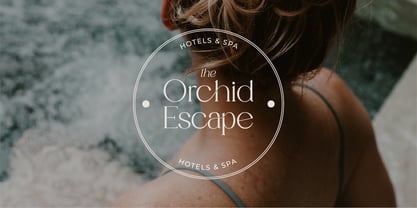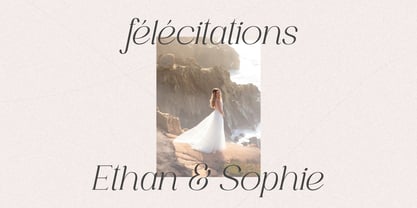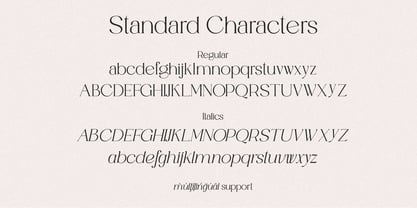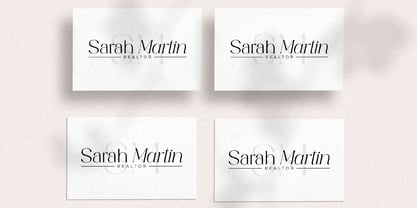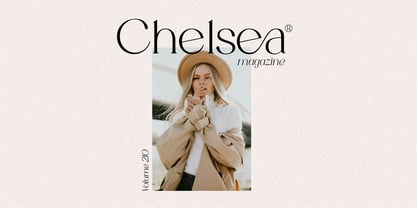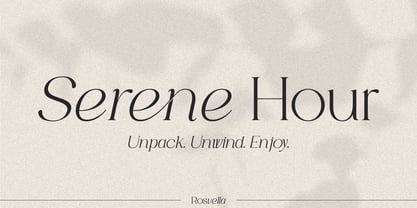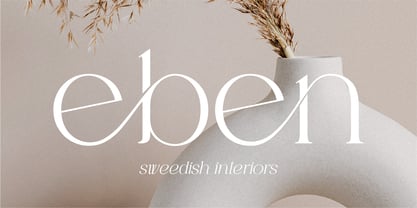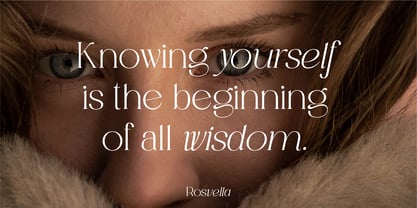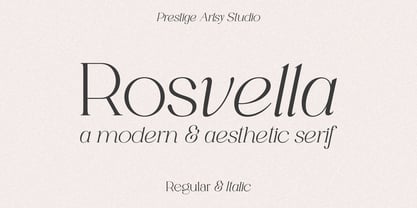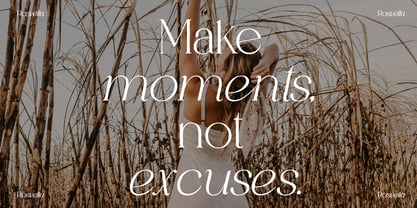
Rosvella Serif Family
by Prestige Artsy Studio
The Rosvella Serif Family Font Family was designed by Zak M and published by Prestige Artsy Studio. Rosvella Serif Family contains 2 styles and family package options. More about this family
Rosvella is a sophisticated serif typeface that blends timeless elegance with contemporary design. Featuring both Regular and Italic styles, this font is crafted to bring a refined, graceful touch to your creative projects.
Designed with high contrast strokes and delicately sculpted curves, Rosvella offers beautiful ligatures that add fluidity and charm to your typography. Its italic variant enhances the expressive nature of the typeface, making it perfect for editorial design, branding, packaging, and luxury projects.
Whether you're crafting a magazine layout, an elegant logo, or stylish invitations, Rosvella delivers a seamless balance of modern aesthetics and classic sophistication.
Let your words shine with Rosvella—where beauty meets versatility.